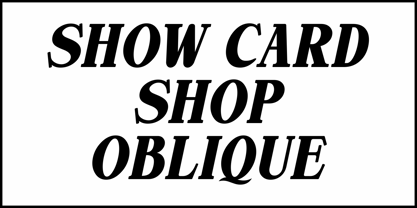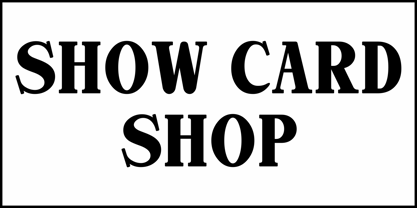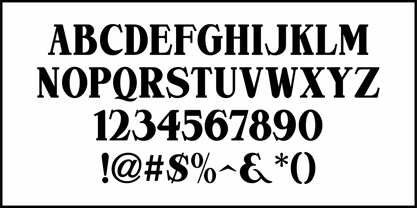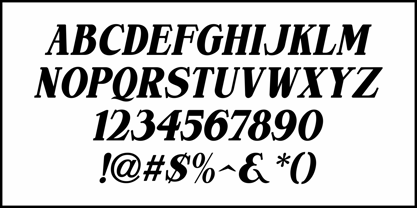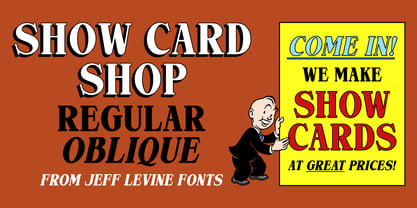
Show Card Shop JNL
by Jeff Levine
In the 1942 publication "Simplified Show Card Writing" by Carl Rousseau Havighorst, one of the many alphabets displayed is a handlettered serif type design which has been redrawn digitally as Show Card Shop JNL in both regular and oblique versions. This bold, yet somewhat casual design is perfect for projects where lettering must draw attention without being overly serious in its message.